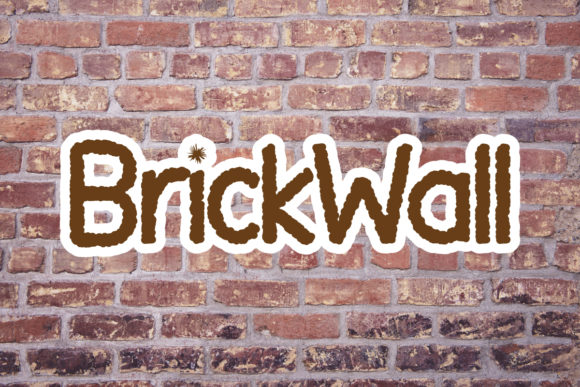
The Ultimate Design Game-Changer: Unleashing the Power of Brickwall Font
I’ll never forget the design project that had me stuck in a creative rut. I was working on a branding campaign for a trendy new coffee shop, and I just couldn’t find the right font to capture their edgy, urban vibe. That was until I stumbled upon Brickwall Font. 💥
This bold and original display font has been a total game-changer for my design workflow. Its versatility and unique character have made it an essential part of my toolkit. In this article, I’ll share my honest review of Brickwall Font, provide a practical guide on how to use it, and explore similar fonts that you might love.
My Honest Review of Brickwall Font
• 💥 **Bold and eye-catching**: Brickwall Font is perfect for making a statement with your designs.
• ✅ **Highly adaptable**: It works beautifully for branding, product packaging, invitations, quotes, t-shirts, labels, posters, and logos.
• 🎨 **Unique character**: The font’s edgy, urban feel adds a touch of personality to any design.
• 👍 **Easy to read**: Despite its boldness, the font remains surprisingly legible, even at smaller sizes.
• ⚠️ **Limited use cases for body text**: Brickwall Font is best suited for display purposes; it may not be the best choice for lengthy paragraphs.
• 🤔 **Some glyphs may require manual adjustment**: Depending on the context, certain glyphs might need tweaking to ensure optimal spacing and alignment.
The Backstory Behind Brickwall Font
Brickwall Font was designed with the intention of creating a bold, eye-catching display font that would add a touch of urban grit to any design. Inspired by the rough, industrial textures of city streets, the font’s creator aimed to craft a typeface that would stand out in a crowded design landscape.
What is Brickwall Font best suited for? Brickwall Font is ideal for display purposes, such as headlines, titles, branding, and packaging.
Can I use Brickwall Font for body text? While it’s possible to use Brickwall Font for body text, it’s not recommended. The font’s boldness and condensed style make it better suited for display purposes.
Is Brickwall Font suitable for digital use? Yes, Brickwall Font is optimized for digital use and can be used for a variety of digital applications, including social media graphics, website headers, and more.